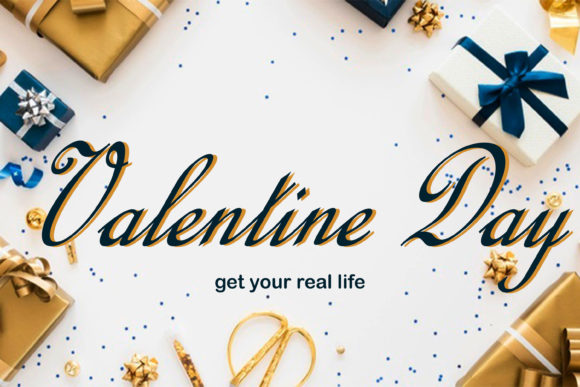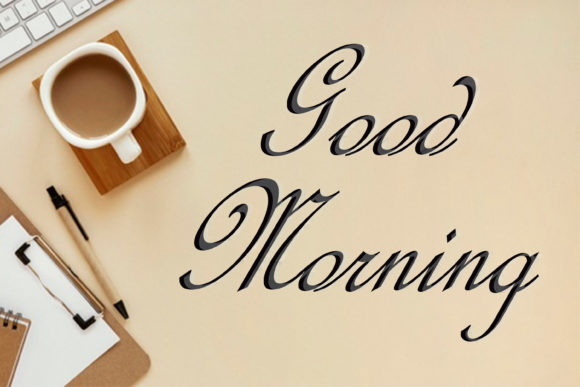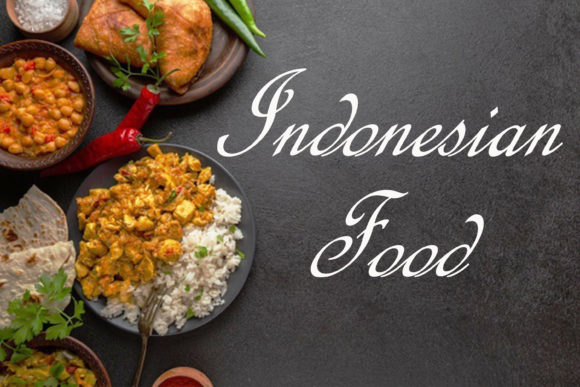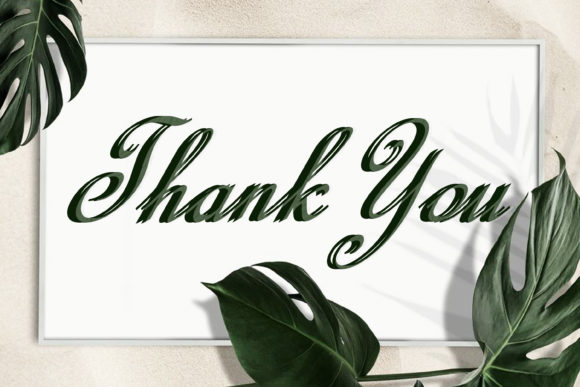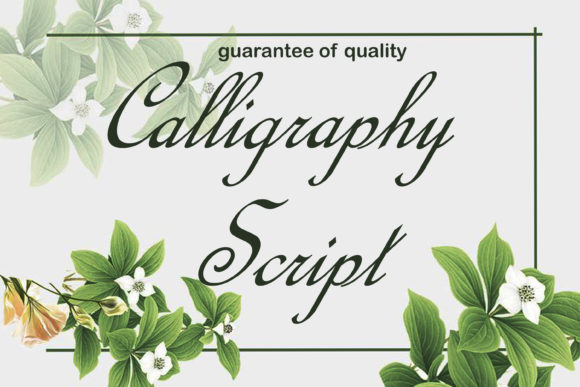
Introducing Calligraphy Script Font: Elevate Your Designs with Elegance
Are you a designer or crafter looking for a font that exudes sophistication and style? Look no further than the Calligraphy Script Font. This stunning script font is a distinct and graceful addition to any design project, and its ravishing style is sure to captivate your audience. In this article, we’ll dive into the world of Calligraphy Script Font and explore its features, benefits, and uses.
The Beauty of Calligraphy Script Font
Calligraphy Script Font is a beautiful, hand-crafted font that embodies the essence of traditional calligraphy. Its elegant strokes, flowing lines, and intricate details make it a perfect choice for designs that require a touch of sophistication. Whether you’re creating wedding invitations, branding materials, or digital content, this font is sure to elevate your designs to the next level.
What Sets Calligraphy Script Font Apart?
So, what makes Calligraphy Script Font stand out from other script fonts? For starters, it’s PUA (Private Use Area) encoded, which means you can access all glyphs and swashes with ease. This feature allows you to unlock the full potential of the font and experiment with different styles and combinations. With Calligraphy Script Font, you can add a personal touch to your designs and make them truly unique.
Here are some of the key features and benefits of using Calligraphy Script Font:
• PUA Encoding: Access all glyphs and swashes with ease, giving you maximum flexibility and creative control.
• Elegant Design: Beautifully crafted with intricate details and flowing lines, perfect for designs that require a touch of sophistication.
• Versatility: Suitable for a wide range of design projects, from wedding invitations to branding materials and digital content.
Uses for Calligraphy Script Font
Calligraphy Script Font is a versatile font that can be used for a variety of design projects. Here are some ideas to get you started:
• Wedding Invitations: Create beautiful, bespoke wedding invitations that set the tone for a special day.
• Branding Materials: Elevate your brand with elegant business cards, letterheads, and packaging designs.
• Digital Content: Add a touch of sophistication to your blog posts, social media graphics, and email newsletters.
• Stationery: Design gorgeous stationery sets, including notebooks, journals, and greeting cards.
Tips for Using Calligraphy Script Font
Here are some tips for getting the most out of Calligraphy Script Font:
• Experiment with Swashes: Use the PUA encoding to access a range of swashes and glyphs, and experiment with different combinations to create unique effects.
• Mix and Match: Combine Calligraphy Script Font with other fonts to create interesting contrasts and visual interest.
• Pay Attention to Kerning: Make sure to adjust the kerning to ensure that the font looks elegant and refined.
In conclusion, Calligraphy Script Font is a stunning script font that offers a unique combination of elegance, sophistication, and versatility. With its PUA encoding, elegant design, and ease of use, it’s perfect for designers and crafters looking to elevate their designs. Whether you’re creating wedding invitations, branding materials, or digital content, Calligraphy Script Font is sure to make a lasting impression.